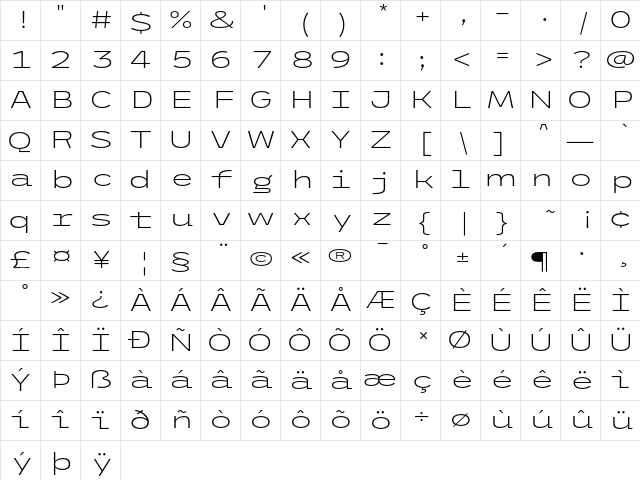
ETC Trispace UltraLight Extended Free Font
ETC Trispace UltraLight Extended
Style: UltraLight Extended
Foundry: Etcetera Type Company
Designer: Tyler Finck
Design Context for ETC Trispace
ETC Trispace is a composed and adaptable typeface that performs quietly and consistently across a wide range of design contexts. Its slender proportions lend an understated elegance to any composition.